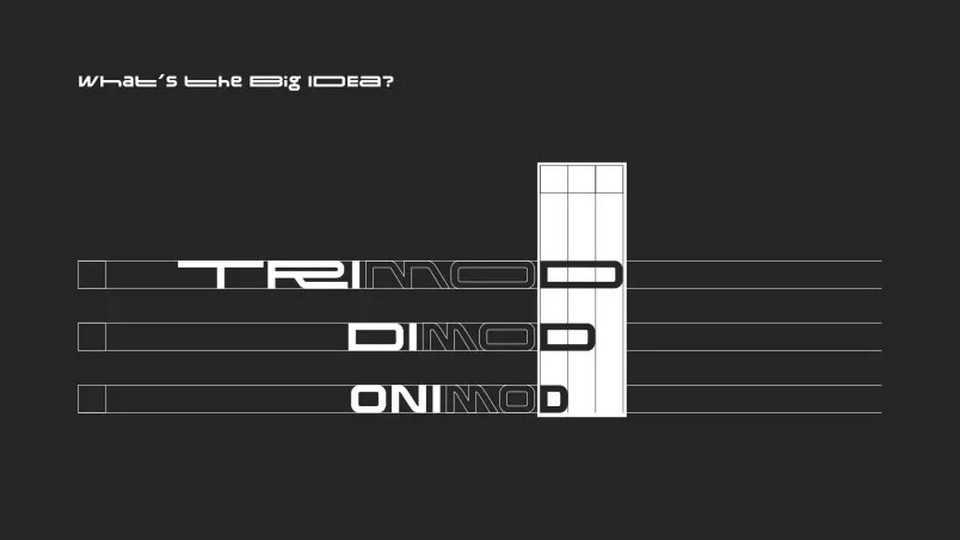
Download Trimod, Dimod, and Onimod, three modular display fonts built on a shared futuristic grid system. Each style explores dimensionality through varying degrees of line density, width, and spatial rhythm